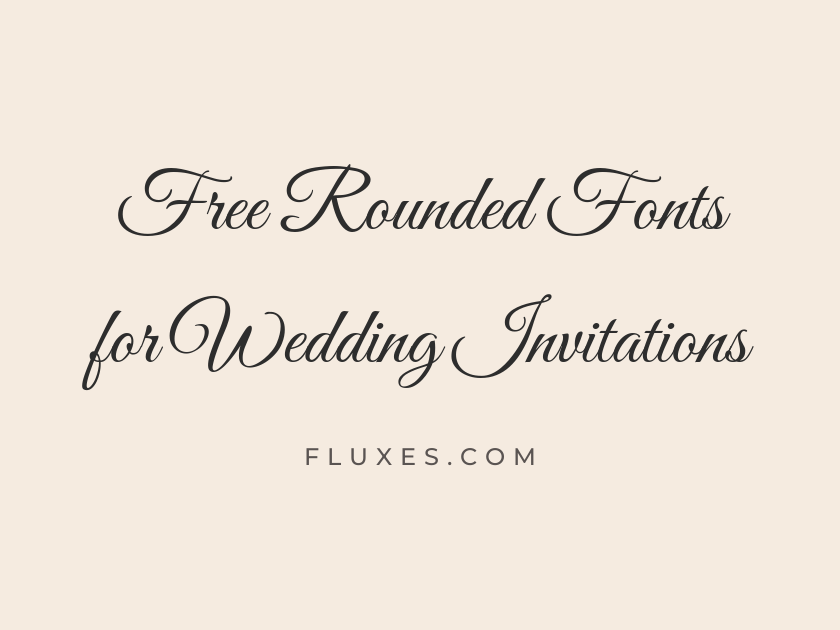
70 Best Free Rounded Fonts for Wedding Invitations
Rounded fonts bring a natural warmth to wedding stationery that sharp, geometric type simply cannot match. The soft curves and gentle terminals found in rounded script and sans-serif fonts echo the romance of the occasion itself, whether you are designing a formal save-the-date, a rustic barn wedding suite, or a modern minimalist invitation. Searching for free rounded fonts for wedding invitations usually means looking for two things at once: elegant, flowing scripts for names and headlines, and softer, more legible rounded sans-serifs for addresses, RSVP details, and body copy. This collection covers both, pulling only from fonts that are genuinely free on Google Fonts and that hold up beautifully in print.
Because wedding suites often mix a display font with a workhorse text font, the list below moves between ornate calligraphic scripts and calmer rounded sans options, so you can build a full stationery set without ever leaving Google Fonts.
A single elegant script with tall, sweeping ascenders, Great Vibes has become something of a default choice for wedding calligraphy, and for good reason. The rounded, unbroken strokes feel handwritten rather than mechanical, making it ideal for the couple’s names on an invitation or the opening line of a ceremony program.
Alex Brush has a looser, more brush-drawn quality than many formal scripts, with rounded bowls and soft tapering strokes that feel personal rather than printed. It pairs beautifully with a clean rounded sans-serif for contrast.
Compact and monoline, Sacramento keeps its rounded letterforms small and tidy, which makes it a smart pick for shorter phrases like a date or a single name rather than long paragraphs. It reads as friendly and understated rather than grand, so it suits a garden or backyard wedding more than an opulent ballroom affair.
There is a soft, almost breathless quality to Parisienne, thanks to its rounded loops and gentle slant. It works especially well at larger sizes on a save-the-date card, where its curves have room to unfurl.
Allura leans elegant and light, with rounded terminals that keep it from feeling stiff even in formal contexts. It is a dependable choice when you want a script that photographs well on foil-stamped or letterpress invitations.
With exaggerated, curling flourishes on its capitals, Pinyon Script feels closer to engraved calligraphy than casual handwriting. It suits traditional, formal weddings especially well, though its ornate swashes mean it should be reserved for short lines rather than full paragraphs of text.
Playball is a rounded script with a slightly retro, mid-century feel, its bold single-weight strokes giving it more presence on the page than a delicate calligraphy font. It reads well from a distance, making it a good option for welcome signage as well as invitations.
Satisfy has a casual, brush-pen character with rounded, slightly imperfect strokes that feel genuinely handwritten. It is versatile enough to work on both rustic and modern minimalist invitation suites.
Few free script fonts are as widely used, and as reliably good, as Dancing Script. Its bouncy baseline and rounded, connected letterforms give it warmth without tipping into fussiness, and because it comes in multiple weights, it can carry both a delicate save-the-date and a bolder table number.
It is an easy first choice for couples who want a script that feels friendly rather than formal, and it pairs comfortably with almost any rounded sans-serif for supporting text.
Yellowtail’s chunky, rounded strokes give it a retro signage feel, reminiscent of a hand-painted shop window. It is a fun option for a couple who wants personality over pure elegance.
True to its name, Cookie has a soft, slightly playful roundness that feels warm rather than austere. It suits casual daytime weddings, bridal showers, and dessert table signage more than a strictly formal black-tie invitation.
Marck Script sits between casual handwriting and formal calligraphy, with consistently rounded letterforms and a relaxed, even rhythm across a line of text. That evenness makes it more legible in longer passages than many ornate scripts, so it can handle a short paragraph of vows or a poem.
Meddon has a gentle, rounded slant with modest flourishes, making it approachable without being plain. It works nicely as a secondary script alongside a bolder display font on a layered invitation.
Italianno is delicate and narrow, with rounded loops that lean toward classic engraving styles rather than casual script. Because its strokes are fine, it needs generous size and dark ink on light paper to stay crisp; it can turn muddy if shrunk down for small print details.
Requesting the honor of your presence
As the name suggests, this is a tidy, upright-leaning script with small, rounded, well-behaved letterforms. It is a good match for traditional, formal wedding wording where legibility matters as much as elegance.
Two lives joined as one
Rouge Script has confident, rounded strokes with just enough weight to hold up in print at moderate sizes, unlike many hairline calligraphy fonts. It feels romantic without being overly ornate.
Lovers Quarrel
Deeply, truly, forever in love
Lovers Quarrel
Lovers Quarrel is a fine, romantic script with rounded, looping connections between letters that give it a continuous, flowing feel. It is best used sparingly, for a name or a short phrase, since its delicate weight can lose definition in longer lines.
Wedded bliss begins this evening
Unlike most connected scripts on this list, Berkshire Swash is built from separated, swashy capitals and rounded lowercase letters that give it more structure and punch. It stands up well on save-the-dates and welcome signs where you want a script that reads clearly from across a room.
Cordially inviting you to celebrate
This is an elaborate, old-world calligraphic script with rounded, elongated flourishes that suit a vintage or heirloom-inspired wedding theme. Its ornamentation means it works best on short lines like a couple’s names rather than paragraphs of ceremony text.
Mr De Haviland
Two hearts, one wedding day
Mr De Haviland
Mr De Haviland is compact and rounded, closer to genuine handwriting than most calligraphy fonts, with a natural, unforced rhythm. It suits invitations that lean personal and intimate rather than grand.
Miss Fajardose
Our forever begins this September
Miss Fajardose
Miss Fajardose brings dramatic, rounded loops and an almost vintage postcard feel to its letterforms. It reads best in a display role, such as a monogram or the couple’s first names, rather than as running text.
Niconne
Love that grows more beautiful daily
Niconne
Niconne has soft, rounded, slightly irregular strokes that feel like they were written with a relaxed hand rather than a ruler. That informality makes it a pleasant match for outdoor or destination weddings.
Euphoria Script
Joy, love, and new beginnings
Euphoria Script
Euphoria Script leans elegant and upright, with rounded, generously looped letterforms that photograph beautifully on textured cardstock. It has enough presence to serve as a standalone display font for a couple’s names.
Ballet
Our love, beautifully written together
Ballet
Ballet is a variable script font with exceptionally smooth, rounded curves and optional decorative swashes activated through OpenType features. Designers who want a script that feels contemporary rather than antique will find it a refreshing alternative to more traditional calligraphy fonts.
A love story worth celebrating forever
WindSong has a light, airy quality, with rounded strokes that stay thin and graceful even at larger sizes. It suits minimalist, modern wedding stationery more than heavily decorated traditional suites.
- Styles: 2 weights (Regular, Medium)
Beau Rivage
Married in love, bound forever
Beau Rivage
Beau Rivage carries an old-fashioned, romantic charm, with rounded loops and a slight forward lean reminiscent of fountain-pen handwriting. It works well as an accent script paired with a plainer serif for body copy.
Bilbo
Together is our favorite place
Bilbo
Bilbo has a bouncy, rounded, slightly whimsical character that feels handwritten with a felt-tip pen rather than a formal calligraphy nib. It suits casual, fun-loving couples who want warmth over grandeur.
Sealed with love, forever yours
Courgette’s rounded, brush-like strokes sit at a comfortable weight, neither too thin nor too bold, which makes it one of the more legible casual scripts on this list. It holds up reasonably well even at smaller sizes, unlike many of its finer counterparts.
Old-fashioned romance, timeless new beginning
Grand Hotel evokes vintage hotel signage and 1950s postcards, with rounded, slightly retro letterforms and a relaxed baseline. It is a great choice for couples building a nostalgic or Old Hollywood wedding theme, and it pairs naturally with a clean art deco-inspired sans-serif.
Lavishly Yours
Lavishly, joyfully, forever in love
Lavishly Yours
Lavishly Yours is a delicate, extended script with rounded, generously spaced letterforms that give it a luxurious, editorial feel. It shines as a large monogram or headline treatment on a save-the-date.
Mea Culpa
Two hearts, one happy ending
Mea Culpa
Mea Culpa has an unpolished, sketch-like roundness that feels genuinely handwritten, almost like a note left on a table. It suits casual, low-key wedding stationery rather than formal engraved-style invitations.
Give You Glory
Grateful hearts, joined in marriage
Give You Glory
Give You Glory reads like confident, rounded marker handwriting, with a slight forward tilt and full, generous letterforms. It works nicely for short blessings or a single meaningful line on an invitation insert.
Yesteryear
Once upon a wedding day
Yesteryear
Yesteryear has a charming, retro roundness reminiscent of mid-century greeting cards. Its narrow proportions make it a good fit for compact spaces like envelope liners or place cards.
Ephesis
Our love, written in stars
Ephesis
Ephesis is a soft, rounded script with an easy, unhurried rhythm and generous curves on its ascenders. It feels calm and understated rather than showy, which suits a quietly elegant, modern wedding palette.
Together forever, from this day
Norican combines rounded script curves with a slightly bolder, more geometric structure than most calligraphy fonts, giving it unusual durability at small sizes. That makes it a practical option for details like table numbers and menu cards.
La Belle Aurore
Beautifully, tenderly, forever in love
La Belle Aurore
La Belle Aurore has thin, rounded strokes and a relaxed, imperfect quality that feels like a love letter rather than a printed invitation. Its lightness means it needs a fairly large size to stay legible.
Aguafina Script
Love flows gently, forever onward
Aguafina Script
Aguafina Script has smooth, watery curves and consistent rounded proportions that give it a calm, flowing personality. It suits beach and destination wedding stationery particularly well.
Julee
Cheers to forever, my love
Julee
Julee is a slim, rounded script with a friendly, upbeat character, ideal for short celebratory phrases rather than dense text. Think a cocktail hour sign or a thank-you tag rather than a full invitation wording block.
Mrs Sheppards
With love and gratitude always
Mrs Sheppards
Mrs Sheppards has tight, rounded loops and a classic penmanship feel, evoking old letters and handwritten notes. It complements vintage and heirloom wedding themes especially well.
Whisper
Softly spoken, forever remembered vows
Whisper
True to its name, Whisper is light and understated, with rounded, gently curling strokes that never feel heavy on the page. It works best as an accent rather than a primary headline font, given how delicate it is at smaller sizes.
Kristi
Two hearts, one forever promise
Kristi
Kristi is a fast, informal script with rounded, slightly overlapping strokes that mimic quick handwriting. It brings an energetic, personal touch to a signature line or a guest book heading.
Elegantly ever after, together always
Tangerine is thin and refined, with long, rounded ascenders that give it real elegance at large display sizes. It is a favorite for monogram initials and formal wording, though its fine strokes mean it is not the best choice for small print.
Qwigley
Our forever love story begins
Qwigley
Qwigley’s connected, rounded lowercase letters flow into one another almost like a single continuous line, giving it a distinctive, elegant rhythm. It reads best in short bursts, such as a couple’s first names.
Handwritten with love, just for you
Homemade Apple looks exactly like its name suggests, genuine ballpoint-pen handwriting with soft, rounded letterforms and natural inconsistency. It brings a warm, personal, DIY feel that suits casual and craft-inspired wedding stationery.
Two hearts, one happy home
Shadows Into Light is a relaxed, rounded handwriting font with a light touch, well suited to informal wording on a rustic or backyard wedding suite. It is legible even in longer passages, which makes it a solid choice for a printed poem or reading.
Sealed with a kiss, forever
Caveat has become a go-to modern handwriting font thanks to its natural, rounded, slightly uneven strokes that never feel robotic. It comes in a range of weights, so it can serve as both a light accent and a bolder handwritten headline.
Sofia
Two souls, one beautiful journey
Sofia
Sofia is rounded and gently sloped, with a soft, approachable character that avoids feeling overly formal. It is a comfortable middle ground between a casual script and a proper calligraphy font.
Corinthia
Forever begins with a promise
Corinthia
Corinthia is delicate and highly connected, with rounded flourishes that give it an antique, engraved quality. Reserve it for large headline text, since its thin strokes can disappear at smaller sizes.
Monsieur La Doulaise
Joining two families as one
Monsieur La Doulaise
Monsieur La Doulaise has dramatic, rounded swashes and an unmistakably French calligraphic flavor. It makes a striking monogram font, though its ornamentation is best kept to short words.
Together, always, from this moment
Mrs Saint Delafield reads like genuinely elegant cursive handwriting, with rounded loops that connect smoothly from letter to letter. Its refined, old-fashioned character makes it a lovely choice for the formal wording on a wedding invitation, and it pairs gracefully with a restrained serif for the finer print details.
Rochester
A love letter, beautifully told
Rochester
Rochester has tall, looping, rounded ascenders and descenders that give it plenty of drama for a short line of text. It works especially well as a large-scale monogram or opening word on an invitation.
Merienda
Sweetly, joyfully, together forever more
Merienda
Merienda blends the friendliness of rounded handwriting with the sturdiness of a display font, since it comes in a full range of weights from light to black. That flexibility makes it useful for everything from a delicate save-the-date to a bold welcome sign.
Nanum Pen Script
Our story continues, together always
Nanum Pen Script
Nanum Pen Script has a light, rounded, pen-drawn quality with excellent legibility for a handwriting-style font. It is a dependable choice when you need a script that still reads clearly in a paragraph of vows or a reading.
- Language support: Latin, Korean
Delius
Come celebrate our happy day
Delius
Delius is a rounded, childlike handwriting font with thick, friendly strokes and generous spacing. It suits playful, casual weddings, particularly ones with a whimsical or storybook theme.
You are warmly invited, always
Patrick Hand offers a neat, rounded, classroom-handwriting feel that is easy to read even for guests unfamiliar with script fonts. It is a practical pick for RSVP cards and detail inserts where clarity matters more than flourish.
Built to last, love endures
Architects Daughter has a rounded, slightly technical handwriting style, as if sketched with a fine pen on a drafting table. It brings a modern, craft-fair charm to rustic or industrial-loft wedding stationery.
Happily ever after starts now
Gochi Hand is rounded, casual, and just imperfect enough to feel authentically handwritten. It works nicely on save-the-date postcards where a friendly, low-key tone suits the occasion.
Short Stack
Stacked with love, forever yours
Short Stack
Short Stack has compact, evenly rounded letterforms with a tidy, note-card feel. It is legible at small sizes, making it a sensible option for envelope addressing or RSVP fields.
Sunshiney
Bright beginnings, sunny happy forever
Sunshiney
Sunshiney lives up to its cheerful name, with bouncy, rounded strokes and a relaxed slant. It fits sunny outdoor or destination weddings better than a formal evening affair.
Grandstander
Playfully ever after, together always
Grandstander
Grandstander is a rounded display font with a bold, retro-poster energy, quite different from the delicate scripts elsewhere on this list. It suits couples planning a colorful, modern, fun-first wedding rather than a traditional one, and it holds up well on signage.
Alongside the scripts, a good rounded sans-serif earns its place on almost every wedding suite, handling addresses, RSVP details, menus, and other practical text where a script would slow readers down.
Kindly respond by the date
Quicksand is a geometric sans with fully rounded terminals, giving it a soft, contemporary feel that works well for RSVP cards, envelope printing, and website details. It stays crisp and legible even at small sizes, which few decorative scripts can claim.
Please join us for dinner
Comfortaa’s rounded, evenly weighted letters give it a calm, modern character that suits minimalist wedding branding. It pairs comfortably with almost any script from this list as a body-text companion.
Reception to follow the ceremony
Baloo 2 is a chunkier rounded sans, friendly and confident enough to work as a secondary headline font, such as a table number or a section title on a wedding website. Its heavier weights bring a bit of playful warmth without losing legibility.
Dinner, dancing, and dessert follow
Varela Round has soft, rounded edges on an otherwise simple, humanist sans structure, making it an easy, unobtrusive choice for body copy on programs and menus. It never competes for attention with a more decorative script headline.
- Language support: Latin, Latin Extended, Hebrew, Vietnamese
Black tie optional, love required
Fredoka brings a bouncy, rounded character with slightly wider proportions than most rounded sans fonts, giving it a bit more personality for headings on a modern wedding website or digital invitation.
Kindly RSVP by the fifteenth
Nunito is one of the most versatile rounded sans-serifs available, balancing soft terminals with excellent readability across a wide range of weights. It is a reliable workhorse for anything from a wedding website to printed detail cards.
M PLUS Rounded 1c
Thank you for celebrating with us
M PLUS Rounded 1c
M PLUS Rounded 1c has a clean, friendly roundness with slightly wider letterforms that read clearly even in small print. It is a good pick for multilingual wedding stationery, since it was designed with broad character support in mind.
- Language support: Latin, Latin Extended, Cyrillic, Cyrillic Extended, Greek, Greek Extended, Hebrew, Japanese, Vietnamese
- Styles: 7 weights (Thin to Black)
Cocktails at six, dinner at seven
Rubik has gently rounded corners on an otherwise sturdy, slightly boxy sans structure, giving it a modern, approachable feel without veering into overtly playful territory. It suits contemporary, design-forward wedding branding.
Sweetly ever after, love blooms
Sniglet is noticeably rounder and bubblier than most sans-serifs on this list, closer to a comic lettering style. It is best reserved for lighthearted, casual weddings rather than formal ones, used sparingly for a fun accent word rather than full paragraphs.
- Styles: 2 weights (Regular, Extra-Bold)
Bree Serif
Gathering to celebrate love and family
Bree Serif
Bree Serif softens its slab-serif structure with distinctly rounded terminals, giving it a friendly, storybook warmth that few serif fonts have. It works nicely as a heading font for a rustic or vintage-inspired wedding program.
Pairing rounded fonts for a cohesive wedding suite
A simple, reliable formula is one script for the couple’s names and one rounded sans-serif for everything else. This keeps the invitation elegant without becoming hard to read.
Save the finer, more delicate scripts like Corinthia or Tangerine for large headline moments. Reserve a sturdier script such as Dancing Script or Merienda for anywhere text needs to stay legible at a smaller size.
For programs, menus, and RSVP cards, lean on a rounded sans like Quicksand, Nunito, or Varela Round. Their calm, even letterforms let the more decorative script carry the personality of the suite.
When mixing multiple scripts, choose ones with different structures, perhaps one upright and one slanted, so they read as an intentional pairing rather than a mismatch.
With so many free rounded fonts available through Google Fonts, there is no need to compromise on style or budget when designing wedding stationery. Download a handful of favorites, test them at the actual sizes your invitations will print, and build a suite that feels warm, romantic, and entirely your own.